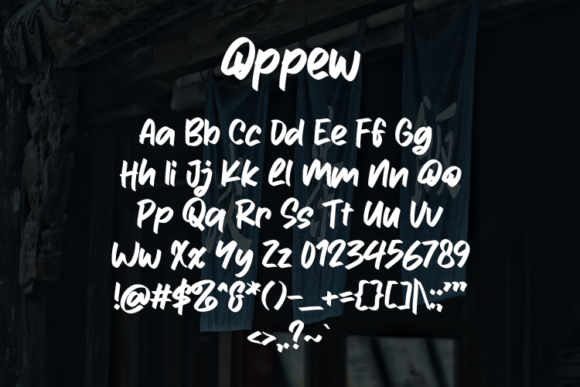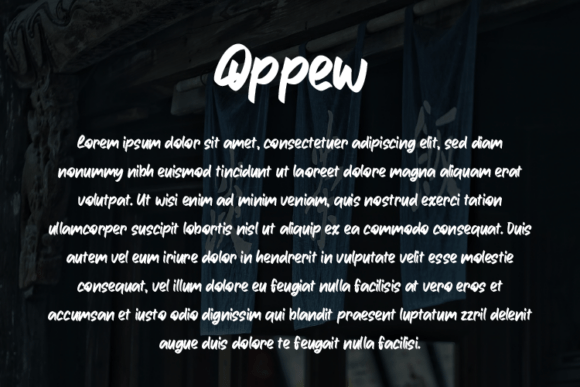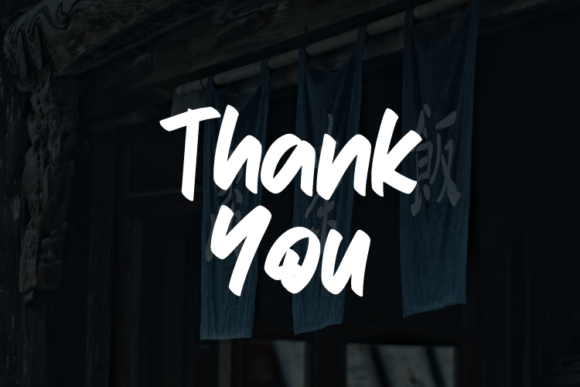
Introduction to Oppew Font
Oppew: Dynamic, Bold & Energetic Bring your designs to life with Oppew, a high-energy script font that mimics the fast, confident strokes of a marker.
Its thick, expressive lines and slight tilt give it a sense of motion and urban flair Oppew is designed to jump off the page (or screen), making it ideal for bold statements that need a punchy, handmade aesthetic.
Oppew Font offers exceptional quality and versatility, making it a valuable addition to your design toolkit. Whether you’re creating for personal projects or commercial use, Oppew Font delivers professional results.